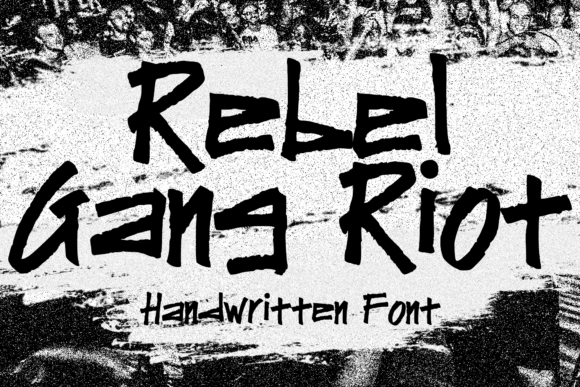
Introducing Rebel Gang Riot Font: Unleash Your Creativity with a Cool Spontaneous Handwritten Font
In the world of design, fonts play a crucial role in conveying the tone and personality of a project. If you’re looking for a font that exudes a sense of rebellion, spontaneity, and creativity, look no further than the Rebel Gang Riot Font. Inspired by quick graffiti tags writing, street art, and punk rock music, this font is perfect for designers who want to add a cool touch to their designs.
What is Rebel Gang Riot Font?
Rebel Gang Riot Font is a cool spontaneous handwritten font that is designed to capture the essence of street art and punk rock music. It’s a font that is inspired by the quick and often reckless graffiti tags that can be found in urban landscapes. With its bold and edgy design, this font is perfect for designers who want to create projects that stand out from the crowd.
Key Features of Rebel Gang Riot Font
- Spontaneous and Handwritten Design: Rebel Gang Riot Font has a unique, handwritten design that gives it a spontaneous and carefree feel.
- Inspired by Graffiti and Street Art: The font is inspired by the bold and edgy world of graffiti and street art, making it perfect for designers who want to create projects that are bold and daring.
- Punk Rock Influence: The font also has a strong punk rock influence, making it perfect for designers who want to create projects that are rebellious and anti-establishment.
- Versatile and Flexible: Rebel Gang Riot Font can be used for a wide range of design projects, from stickers and t-shirt designs to logo designs, magazine covers, and more.
Uses for Rebel Gang Riot Font
Rebel Gang Riot Font is a versatile font that can be used for a wide range of design projects. Here are some ideas to get you started:
- Stickers and Decals: Use Rebel Gang Riot Font to create bold and eye-catching stickers and decals that are perfect for laptops, water bottles, and more.
- T-Shirt Designs: Create unique and stylish t-shirt designs that are perfect for music festivals, concerts, and other events.
- Logo Designs: Use Rebel Gang Riot Font to create bold and memorable logo designs that are perfect for businesses, organizations, and individuals.
- Magazine and Book Covers: Use the font to create eye-catching magazine and book covers that stand out from the crowd.
- Comics and Cartoon Drawings: Rebel Gang Riot Font is perfect for comics and cartoon drawings that require a bold and playful font.
Why Choose Rebel Gang Riot Font?
- Unique and Original Design: Rebel Gang Riot Font has a unique and original design that will set your projects apart from the crowd.
Tips for Using Rebel Gang Riot Font
In conclusion, Rebel Gang Riot Font is a cool spontaneous handwritten font that is perfect for designers who want to add a touch of rebellion and creativity to their design projects. With its bold and edgy design, this font is inspired by quick graffiti tags writing, street art, and punk rock music. Whether you’re creating stickers, t-shirt designs, logo designs, or magazine covers, Rebel Gang Riot Font is the perfect choice.